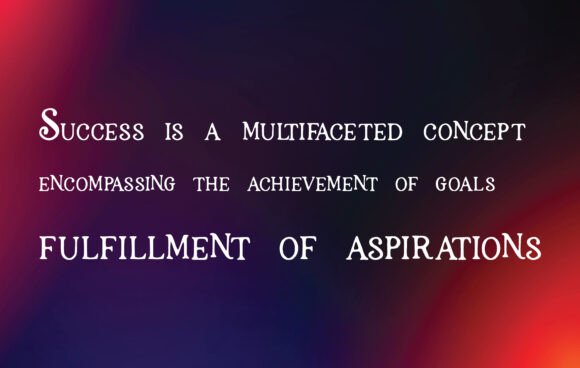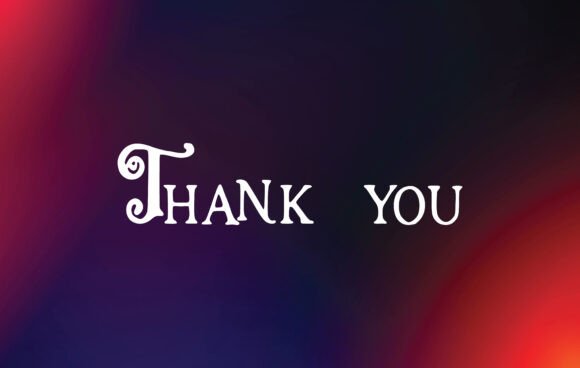
Introduction to Jedidiah Font
As a designer, have you ever stumbled upon a font that sparks creativity and elevates your design game? For me, it was the moment I discovered the Jedidiah Font. Its elegant and refined lines instantly captured my attention, and I knew I had to dive deeper into its world. This beautiful font has the potential to take your creative ideas to the highest level, making it an invaluable resource for designers seeking to create stunning visual experiences.
Whether you’re working on a branding project, crafting eye-catching logos, or simply want to add a touch of sophistication to your quotes, Jedidiah Font is the perfect design resource to explore. With its high-quality design and versatile style, this font is sure to become a go-to choice for any creative project. In this article, we’ll delve into the world of Jedidiah Font and explore its unique features that make it a valuable asset for designers.
Key Features of Jedidiah Font
- High-quality design resource suitable for creative projects, including graphic design, web design, and digital art.
- Features a unique, hand-drawn design with intricate details and textures, adding a touch of personality to any creative project.
- Supports a range of languages, including Latin, Cyrillic, and Greek alphabets, making it a versatile choice for multilingual designs.
Honest Review: Jedidiah Font
I recently had the chance to work with the Jedidiah Font, and I must say it’s a great addition to any designer’s toolkit. One of the things that really stands out about this font is its high quality and versatility.
- ✨ High-quality design that works well for a wide range of creative projects, from logos to typography-heavy designs.
However, there are a few limitations to be aware of:
- ⚠️ Limited language support, which may be a concern for designers working on projects that require multiple languages.
Overall, I’m really impressed with the Jedidiah Font. It’s a solid design resource that can add a lot of value to a project. While it may have a few limitations, it’s definitely worth considering for your next creative project.
Tips for Getting the Most Out of Jedidiah Font
To get the most out of Jedidiah Font, use it in conjunction with a transparent background to create a high-quality design resource. Experiment with different text settings and color combinations to achieve the desired look. You can also use Jedidiah Font for creative projects such as logo design, branding, and typography.
Jedidiah Font is a versatile design resource that can be used in a variety of creative projects. Some common use cases include:
- Branding
- Typography
- Business cards
- Brochures